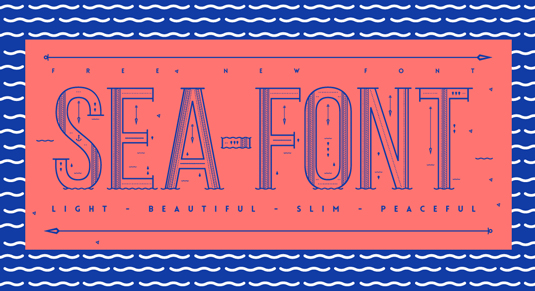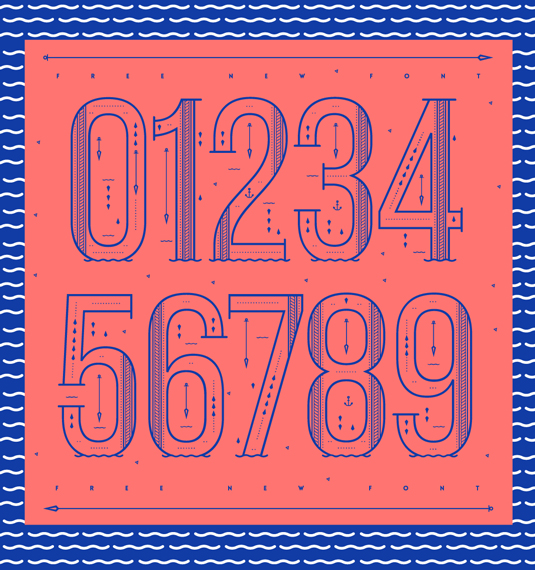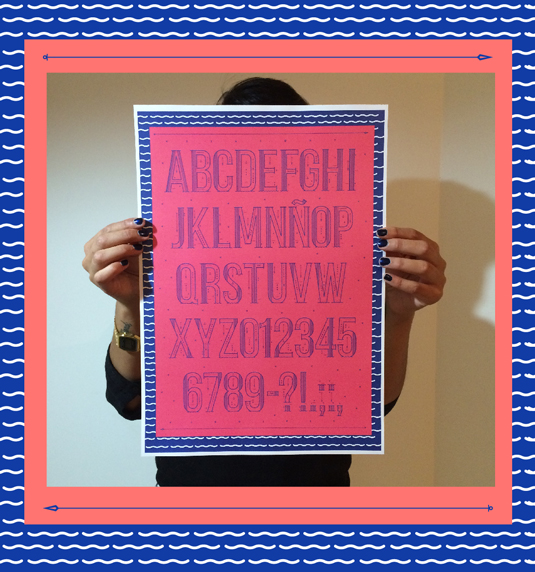
Font of the day: Sea Font
Sea Font by Yai Salinas
Today's font of choice is nautical-inspired design Sea Font, by graphic designer Yai Salinas. A detailed and elegant typeface, Sea Font is great for creating standout posters, headlines and much more.